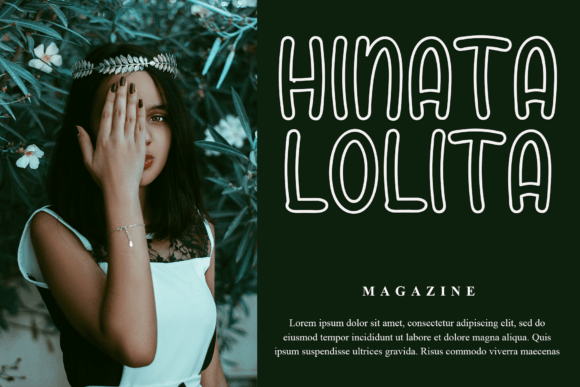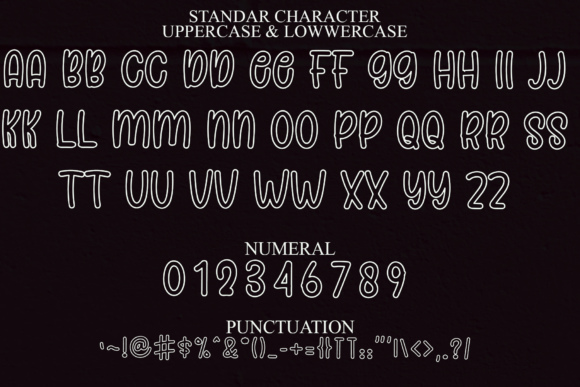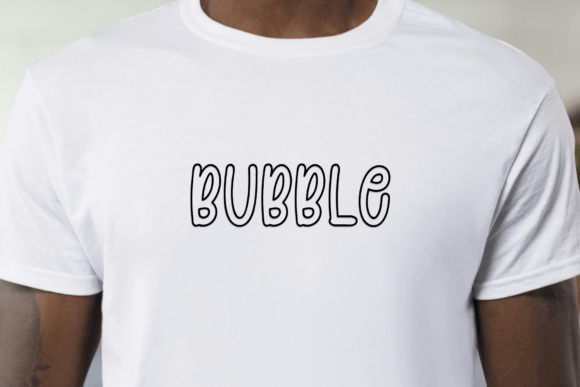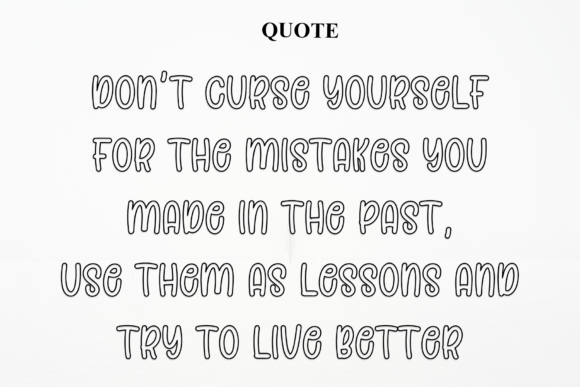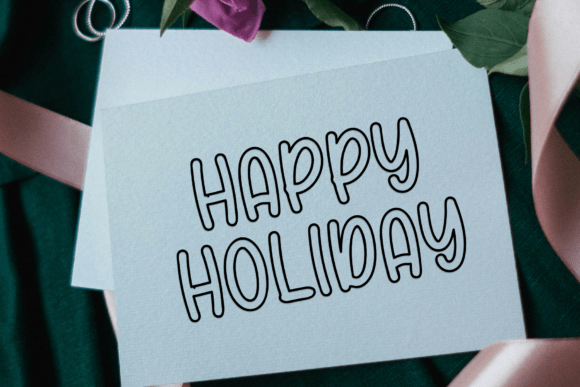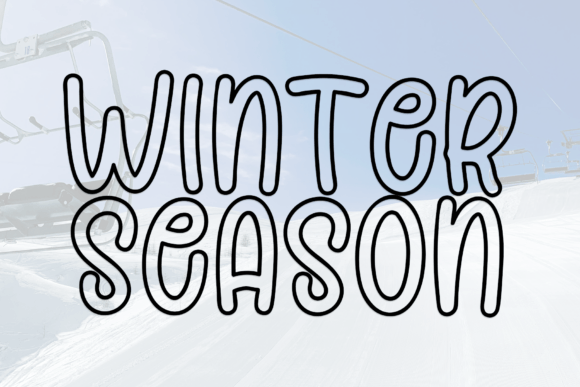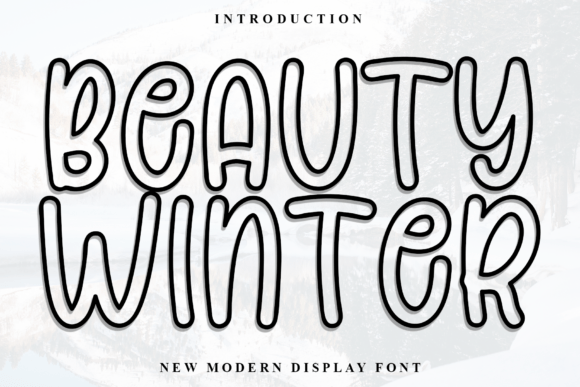
Introducing Beauty Winter Font: Elevate Your Designs with a Touch of Elegance
As the winter season approaches, designers and crafters are on the lookout for fonts that can add a touch of magic to their projects. If you’re searching for a font that embodies the essence of winter while exuding elegance and sophistication, look no further than the Beauty Winter Font. This stunning font is designed to bring a soft, unique touch to your designs, making it perfect for a wide range of creative projects.
A Font that Stands Out: Unique Characteristics of Beauty Winter
The Beauty Winter Font boasts distinctive strokes that give it a special character, making it a meaningful and versatile addition to your design arsenal. Its unique touch sets it apart from other fonts, allowing you to create designs that are both visually appealing and memorable. Whether you’re working on a winter-themed project or simply want to add a touch of elegance to your designs, this font is sure to impress.
Endless Possibilities: Versatility of Beauty Winter Font
One of the standout features of the Beauty Winter Font is its versatility. With a wide range of characters, you can use it to create a variety of designs, from simple crafts to complex projects. The font’s natural style makes it perfect for use in various applications, including Windows and open-source platforms. This means you can seamlessly integrate it into your workflow, regardless of the software or operating system you’re using.
Beauty Winter Font is a dream come true for designers and crafters. Its soft, unique touch makes it ideal for a wide range of creative projects, including:
• Winter-themed designs, such as holiday cards, posters, and social media graphics
• Crafts, like handmade cards, gift tags, and DIY projects
• Branding and packaging designs, where a touch of elegance is required
• Digital art and illustrations, where a unique font can make all the difference
Why Choose Beauty Winter Font?
So, what sets Beauty Winter Font apart from other fonts? Here are just a few reasons why designers and crafters love this font:
• Unique and eye-catching design: The font’s distinctive strokes and soft touch make it a standout in any design
• Versatility: With a wide range of characters, you can use it for various projects and applications
• Elegance and sophistication: The font’s natural style adds a touch of elegance to any design, making it perfect for projects where a high-end look is required
Tips for Using Beauty Winter Font
To get the most out of Beauty Winter Font, here are a few tips to keep in mind:
• Experiment with different sizes and colors: The font’s unique design makes it versatile enough to use in a variety of sizes and colors
• Pair it with complementary fonts: Beauty Winter Font pairs well with other fonts, so don’t be afraid to experiment with different combinations
• Use it to add a touch of elegance: The font’s natural style makes it perfect for adding a touch of elegance to your designs